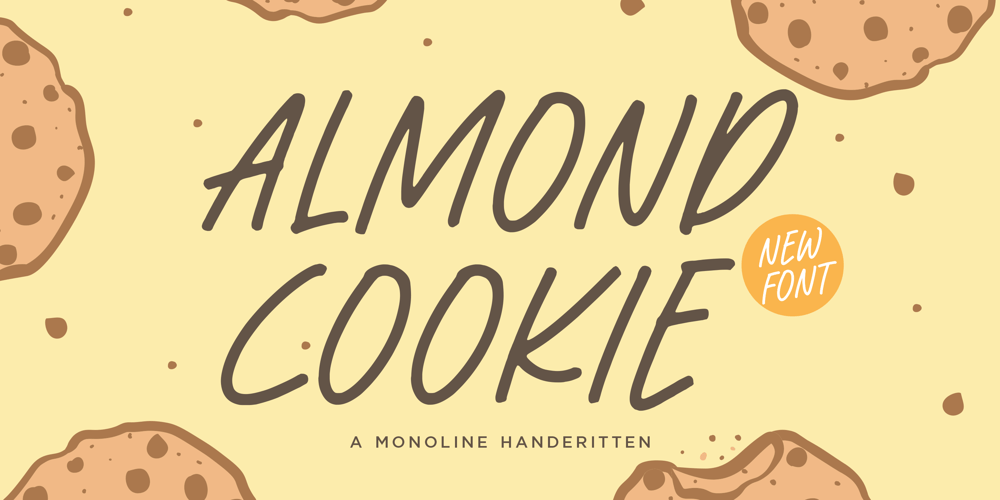
Almond Cookie Font Family was designed by Restu Angga and published by Balpirick. Almond Cookie contains 1 styles and family package options. Almond Cookie is a Monoline Handwritten Font.Whether you’re using it for crafts, digital design, presentations, or making greeting cards, this font has the potential to become your favorite go-to font, no matter the occasion!This font only has allcaps letters. – also multilingual supportEnjoy the font! Feel free to comment or feedback!Thank you!